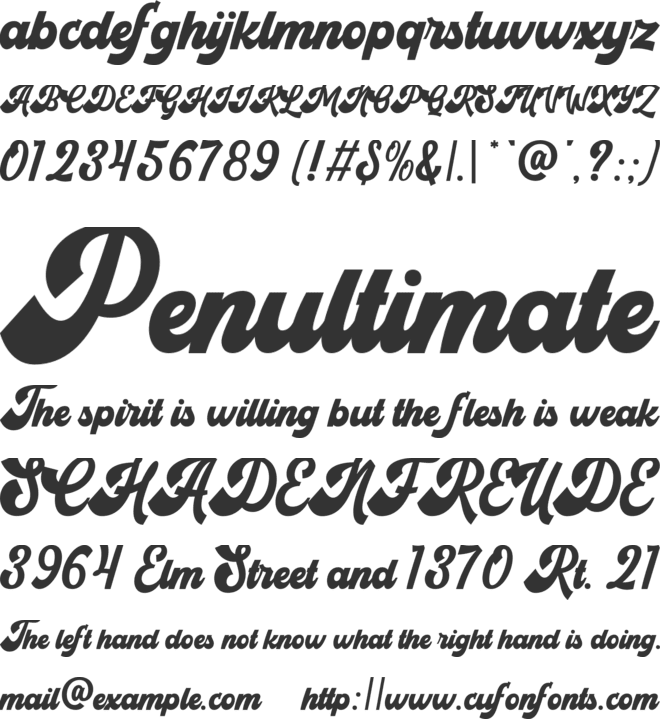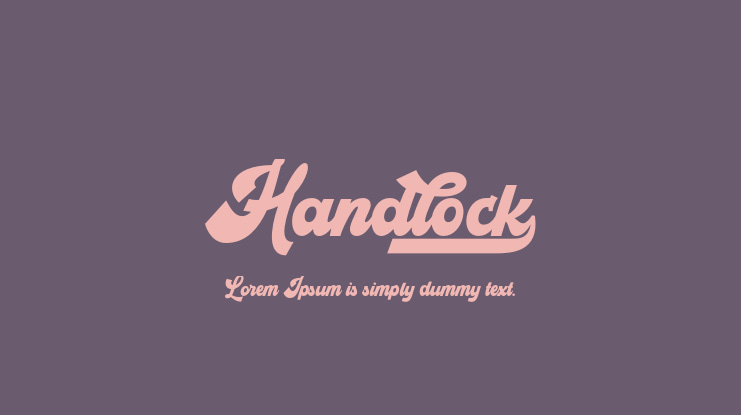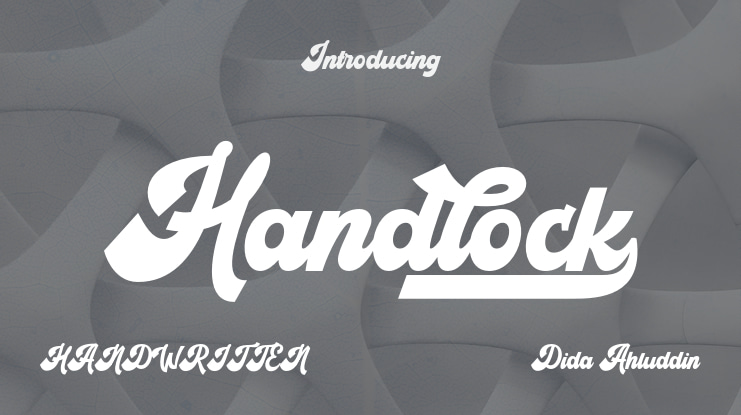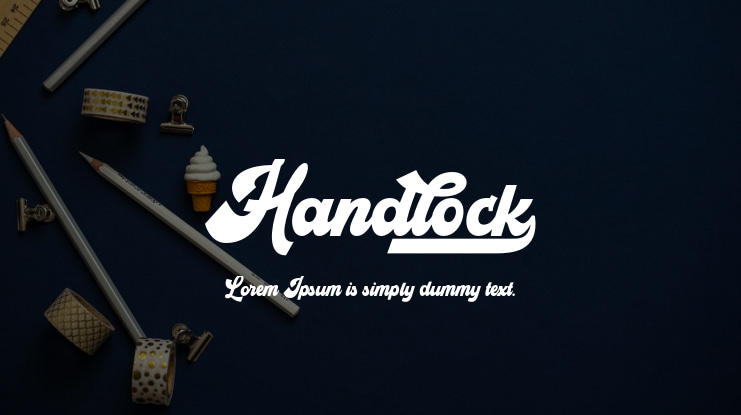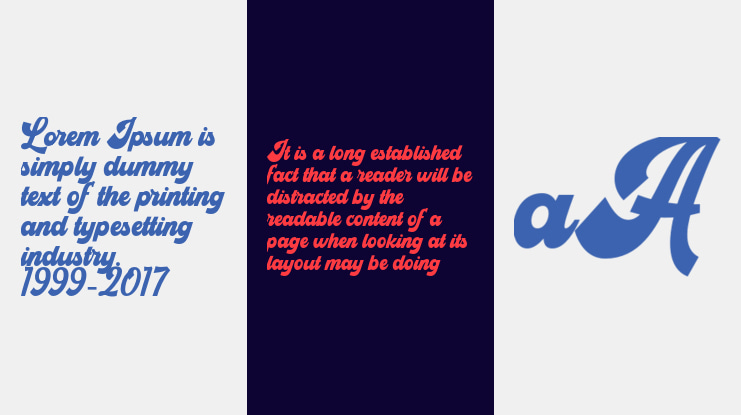
Handlock Font
Handlock is a vintage-inspired handwritten font with a bold and retro style. It exudes strength, confidence, and dynamism, making it perfect for adding a touch of nostalgia to your designs. Whether you are creating vintage posters, stickers, apparel, or social media content, incorporating Handlock will surely captivate your audience. Moreover, this font is PUA encoded, allowing you to effortlessly access all the unique glyphs and swashes it offers.